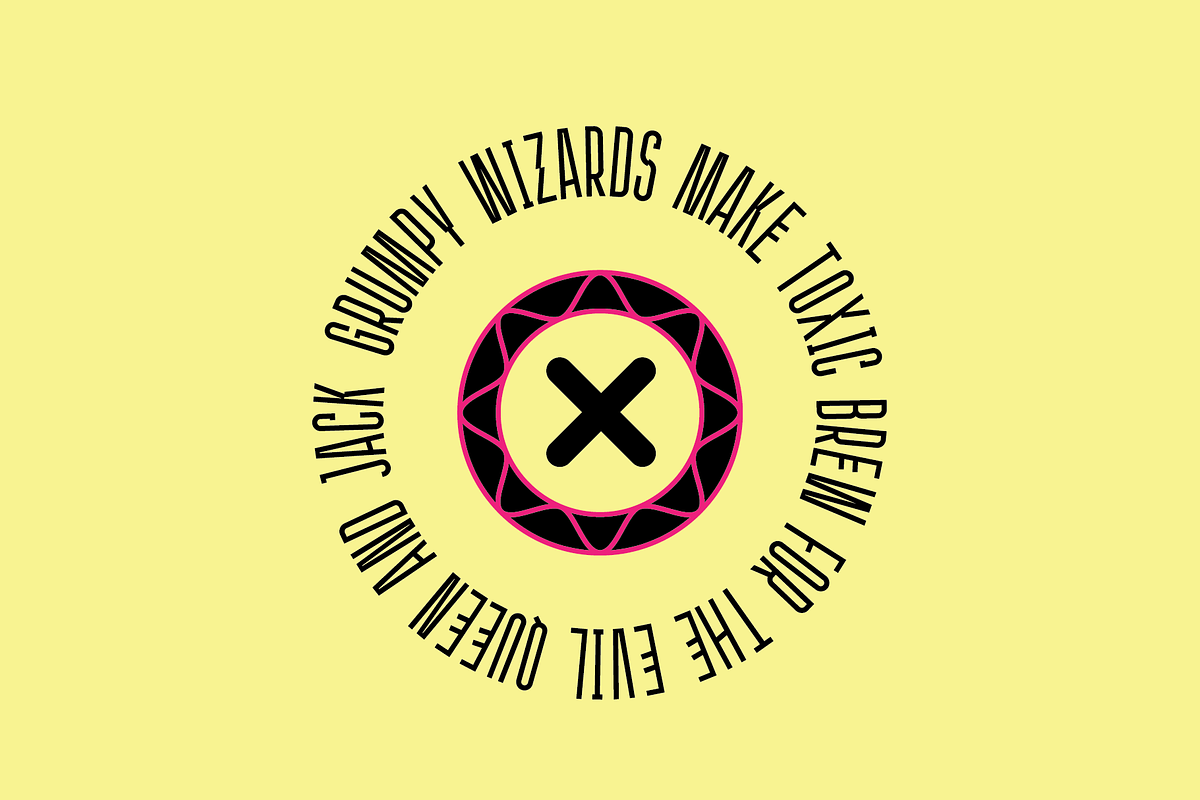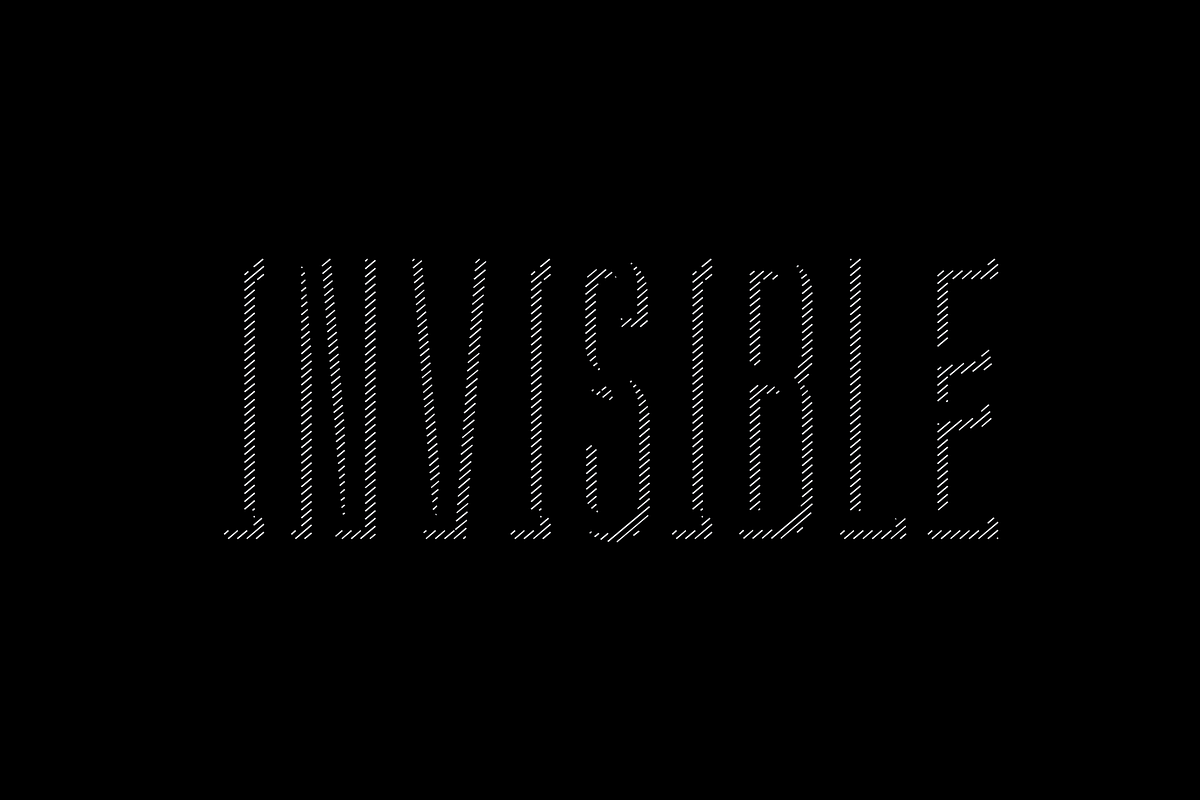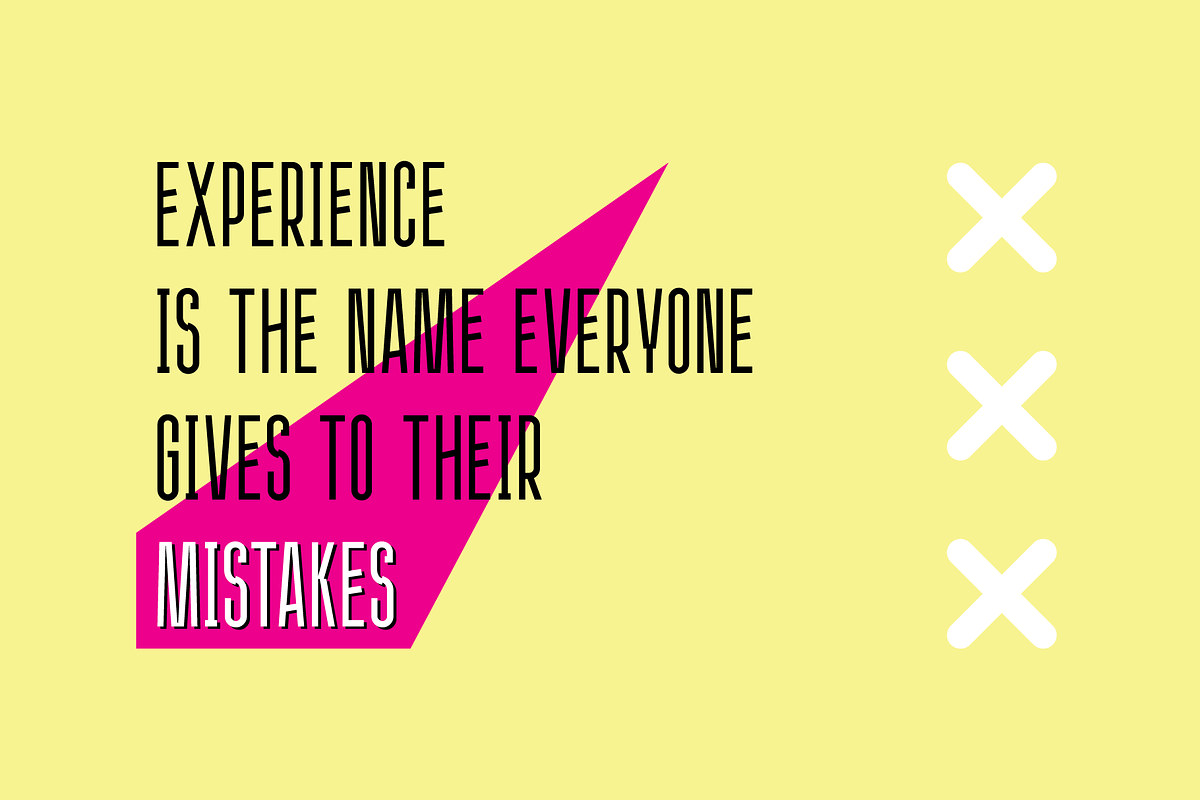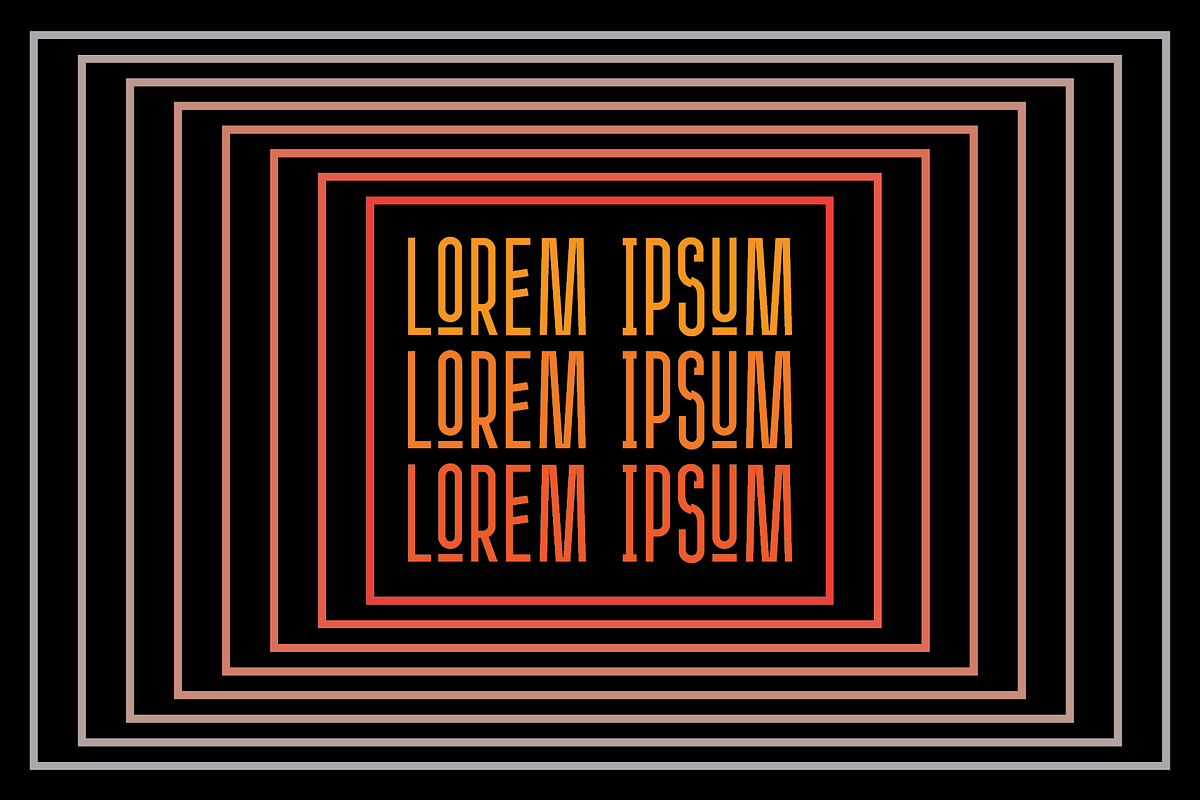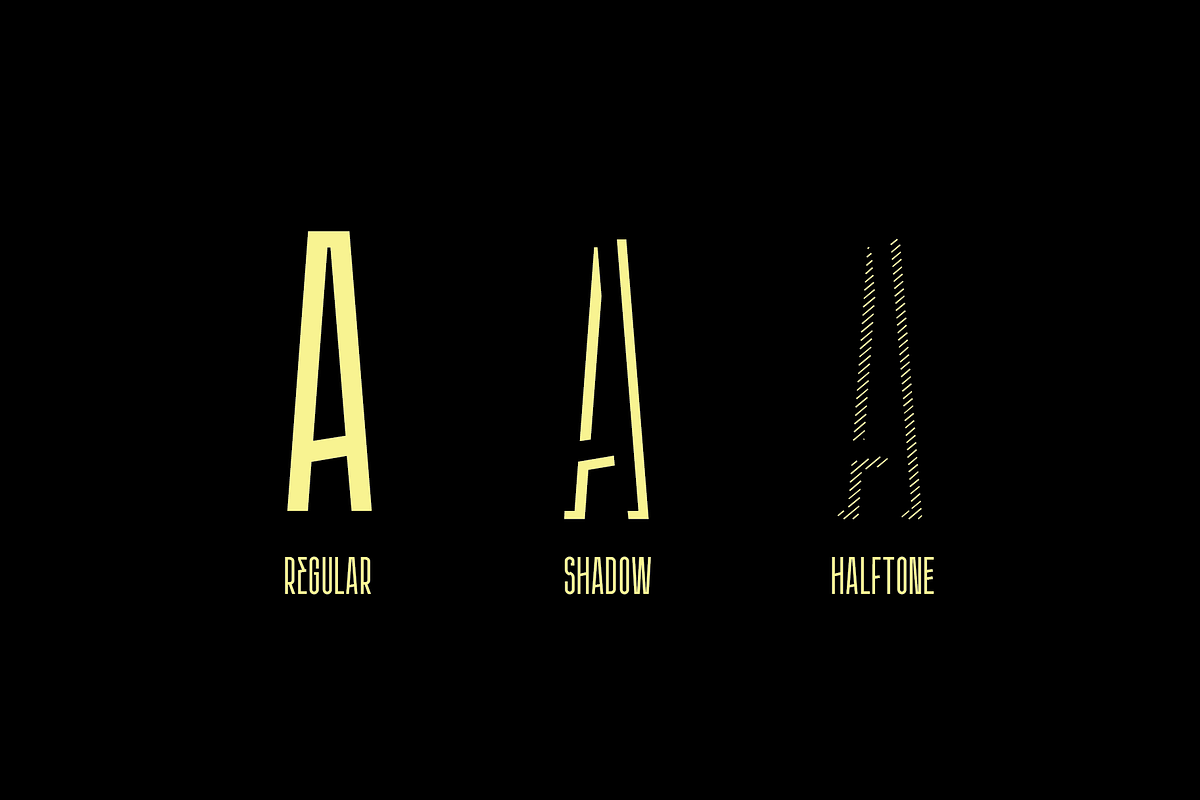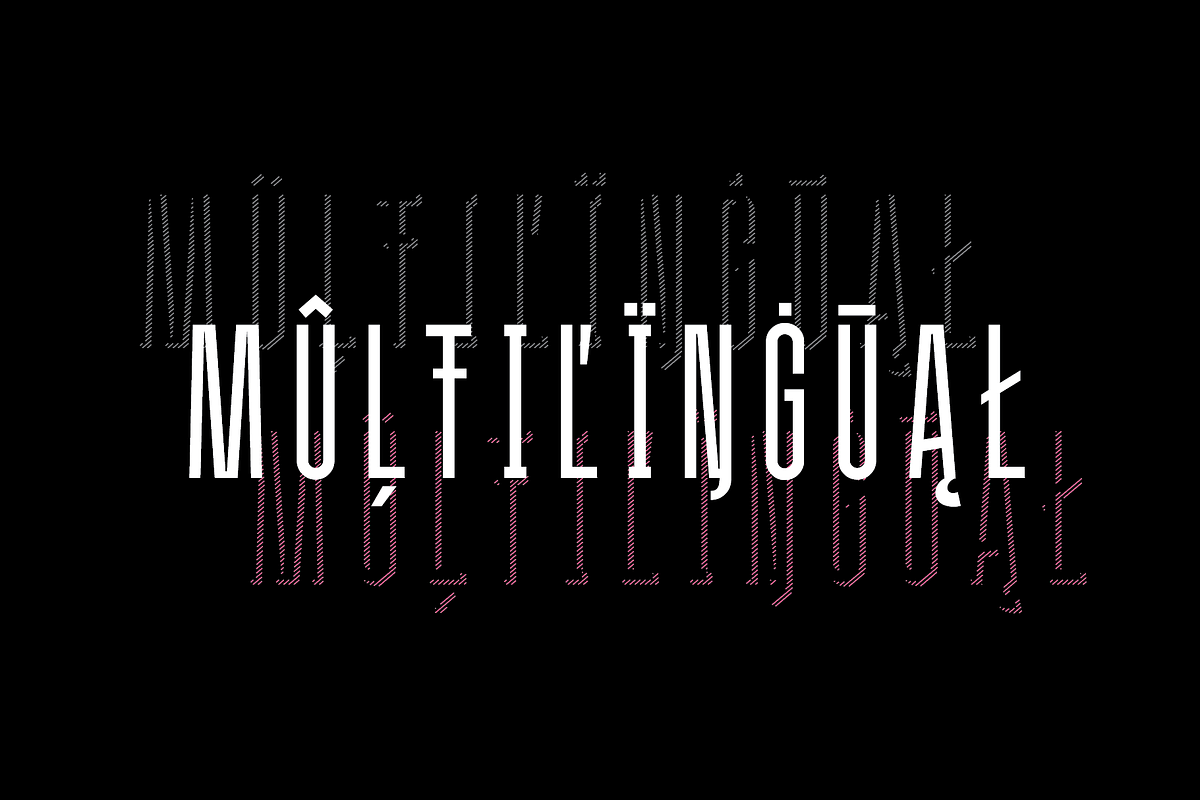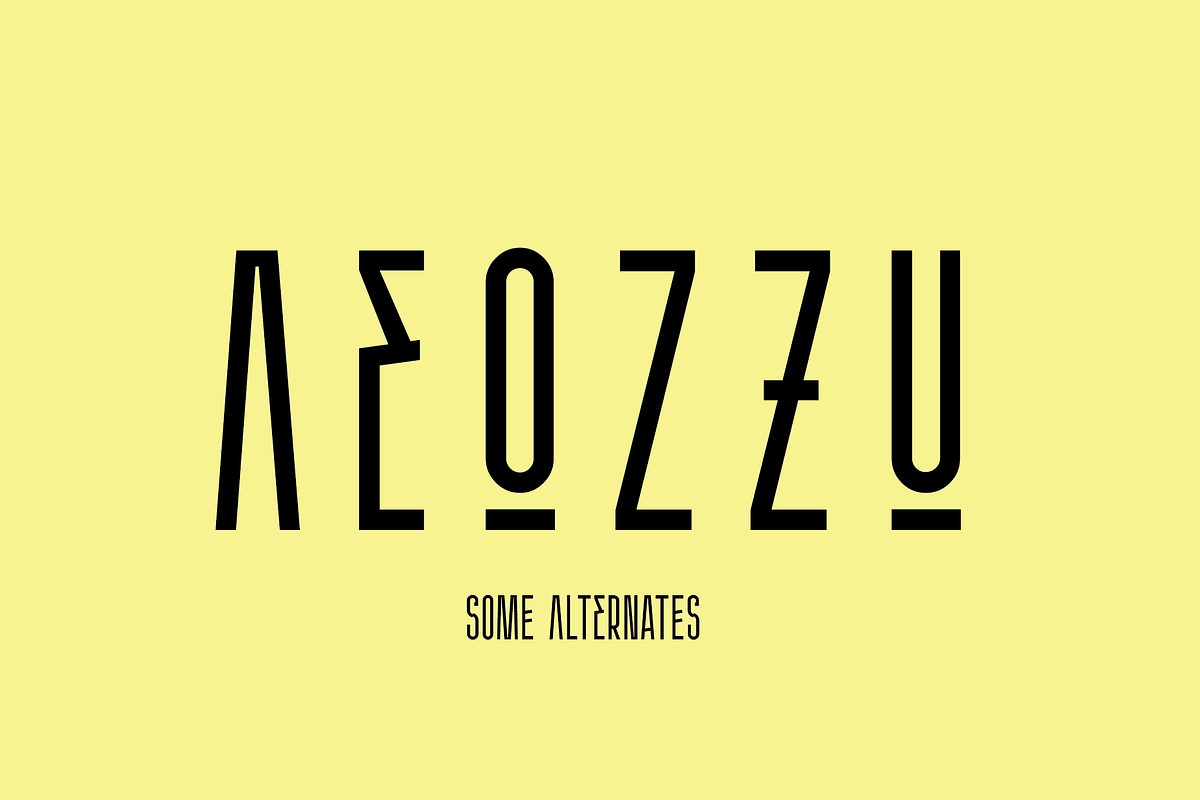
Domek — Modern Font for Logo
Domek is a tall modern typeface.
Some stylistic alternates
Extended latin glyph set
This fonts are perfect for : logo design, headers, posters, packaging designs and more.
- Includes 3 styles (Regular, Shadow, Halftone shadow), you can combine layers to make effects.